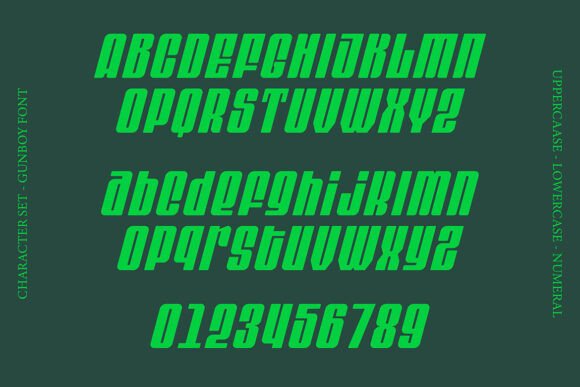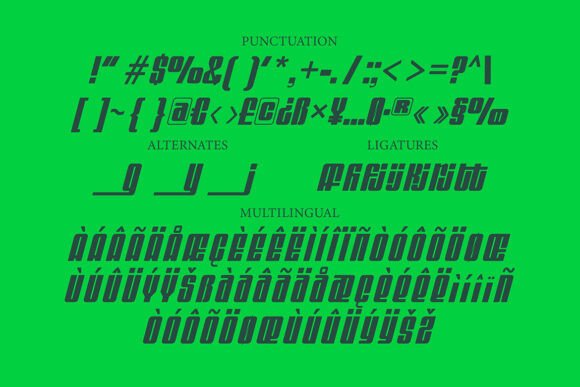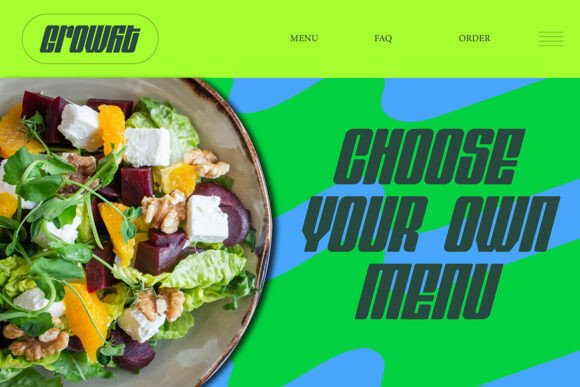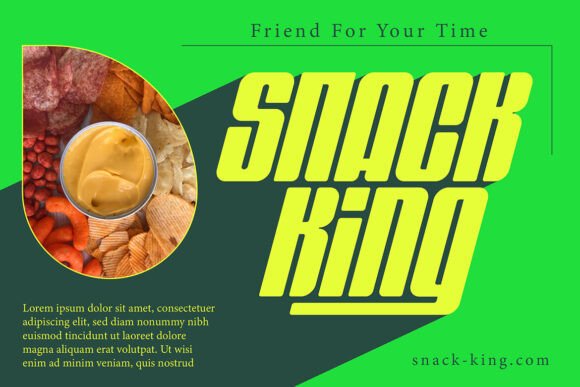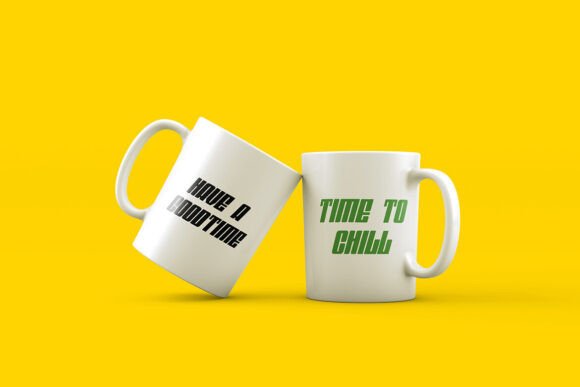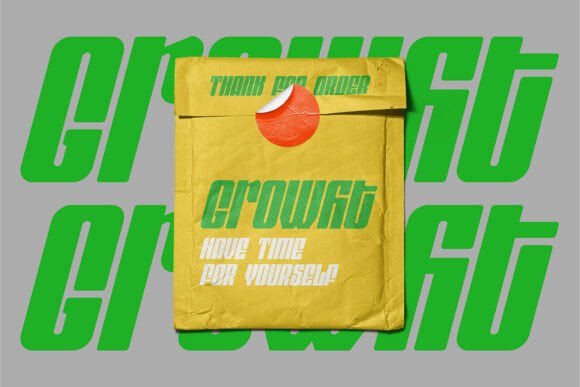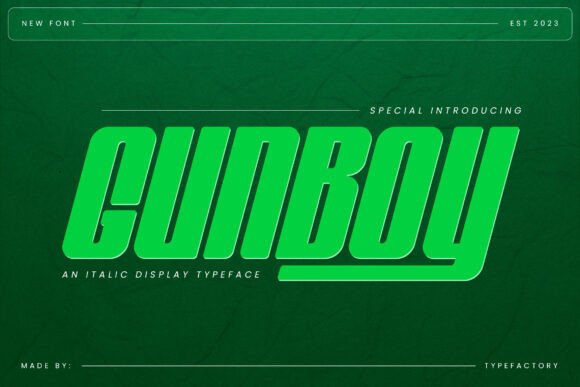
Introducing Gunboy Font: The Ultimate Display Typeface for Bold Designs
Are you looking for a font that can add a dynamic touch to your designs? Look no further than Gunboy, a modern italic display typeface that’s perfect for creative projects that demand energy, movement, and a bold aesthetic. With its sharp, slanted letterforms and aggressive stance, Gunboy is ideal for designers who want to make a statement.
What is Gunboy Font?
Gunboy is a dynamic italic display typeface that’s designed to infuse your designs with a sense of urgency and action. Its bold, slanted letterforms are perfect for projects that need a modern, edgy vibe. Whether you’re working on a poster, album cover, sports branding, or gaming interface, Gunboy is the perfect choice for adding a touch of energy and movement to your design.
Key Features of Gunboy Font
- Sharp, slanted letterforms: Gunboy’s letterforms are designed to make a statement, with sharp, slanted lines that add a sense of energy and movement to your designs.
- Bold presence: Gunboy is a bold font that’s designed to capture attention. Its aggressive stance and sharp lines make it perfect for projects that need a modern, edgy vibe.
- Dynamic and versatile: Gunboy is a versatile font that can be used for a wide range of projects, from posters and album covers to sports branding and gaming interfaces.
Use Cases for Gunboy Font
Gunboy is a versatile font that can be used for a wide range of projects. Here are some of the most popular use cases:
- Posters: Gunboy is perfect for posters that need a bold, eye-catching headline. Its sharp, slanted letterforms and aggressive stance make it perfect for promoting concerts, events, or products.
- Album covers: Gunboy is a great choice for album covers that need a modern, edgy vibe. Its bold presence and dynamic letterforms make it perfect for music genres like rock, pop, or hip-hop.
- Sports branding: Gunboy is perfect for sports branding projects that need a bold, energetic aesthetic. Its sharp, slanted letterforms and aggressive stance make it perfect for sports teams, leagues, or events.
- Gaming interfaces: Gunboy is a great choice for gaming interfaces that need a modern, edgy vibe. Its bold presence and dynamic letterforms make it perfect for game titles, menus, or buttons.
Benefits of Using Gunboy Font
There are many benefits to using Gunboy font in your designs. Here are some of the most significant advantages:
- Adds energy and movement: Gunboy’s sharp, slanted letterforms and aggressive stance add a sense of energy and movement to your designs.
- Captures attention: Gunboy’s bold presence and dynamic letterforms make it perfect for capturing attention and drawing the viewer’s eye.
- Versatile and dynamic: Gunboy is a versatile font that can be used for a wide range of projects, from posters and album covers to sports branding and gaming interfaces.
- Modern and edgy: Gunboy’s sharp, slanted letterforms and aggressive stance give it a modern, edgy vibe that’s perfect for creative projects that demand a bold aesthetic.
- Pair with other fonts: Gunboy can be paired with other fonts to create a unique and dynamic design. Experiment with different font combinations to find the one that works best for your project.
Gunboy font is a dynamic italic display typeface that’s perfect for creative projects that demand energy, movement, and a bold aesthetic. Its sharp, slanted letterforms and aggressive stance make it perfect for posters, album covers, sports branding, and gaming interfaces. With its versatility, dynamic letterforms, and modern, edgy vibe, Gunboy is the go-to choice for designers who want to make a statement.